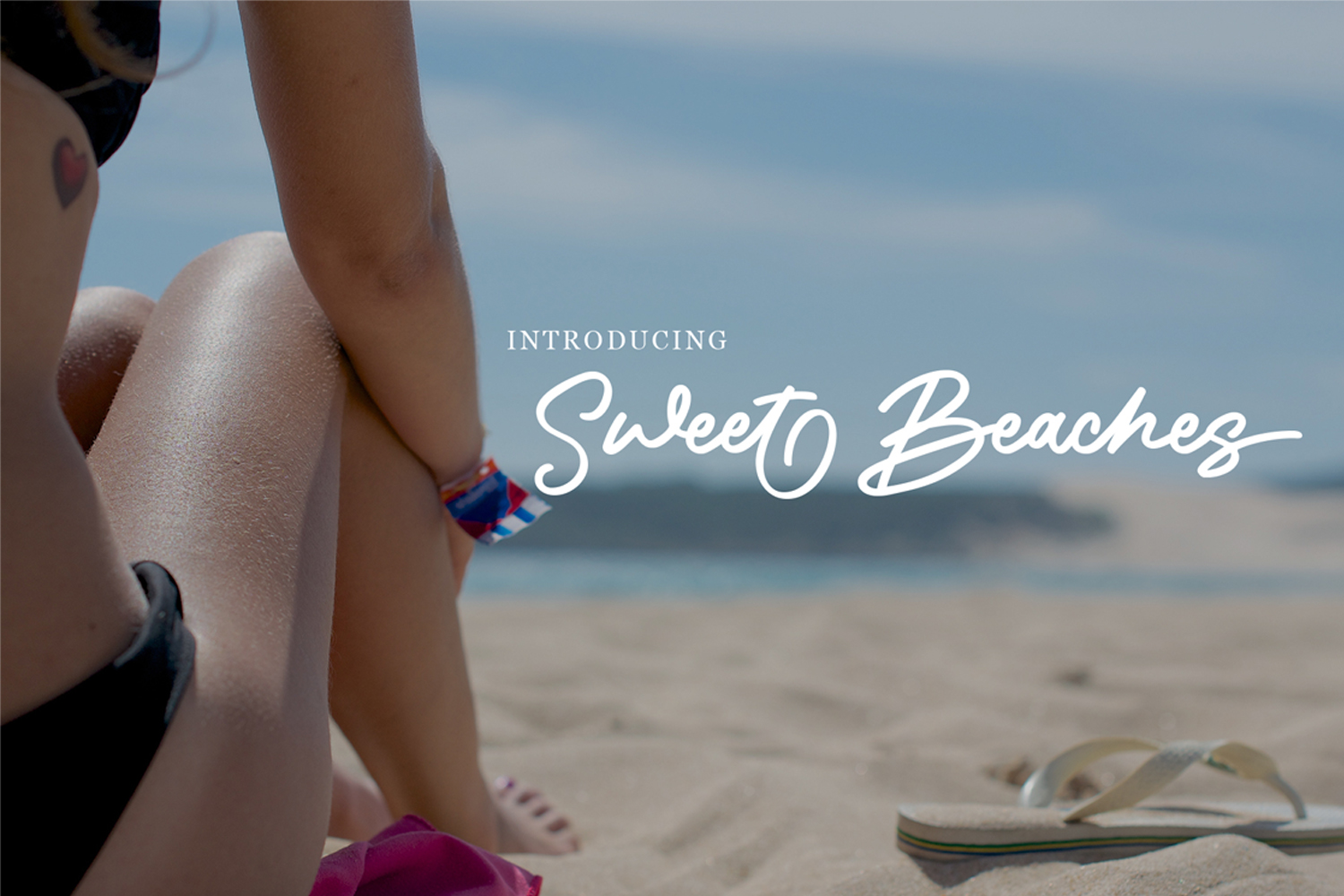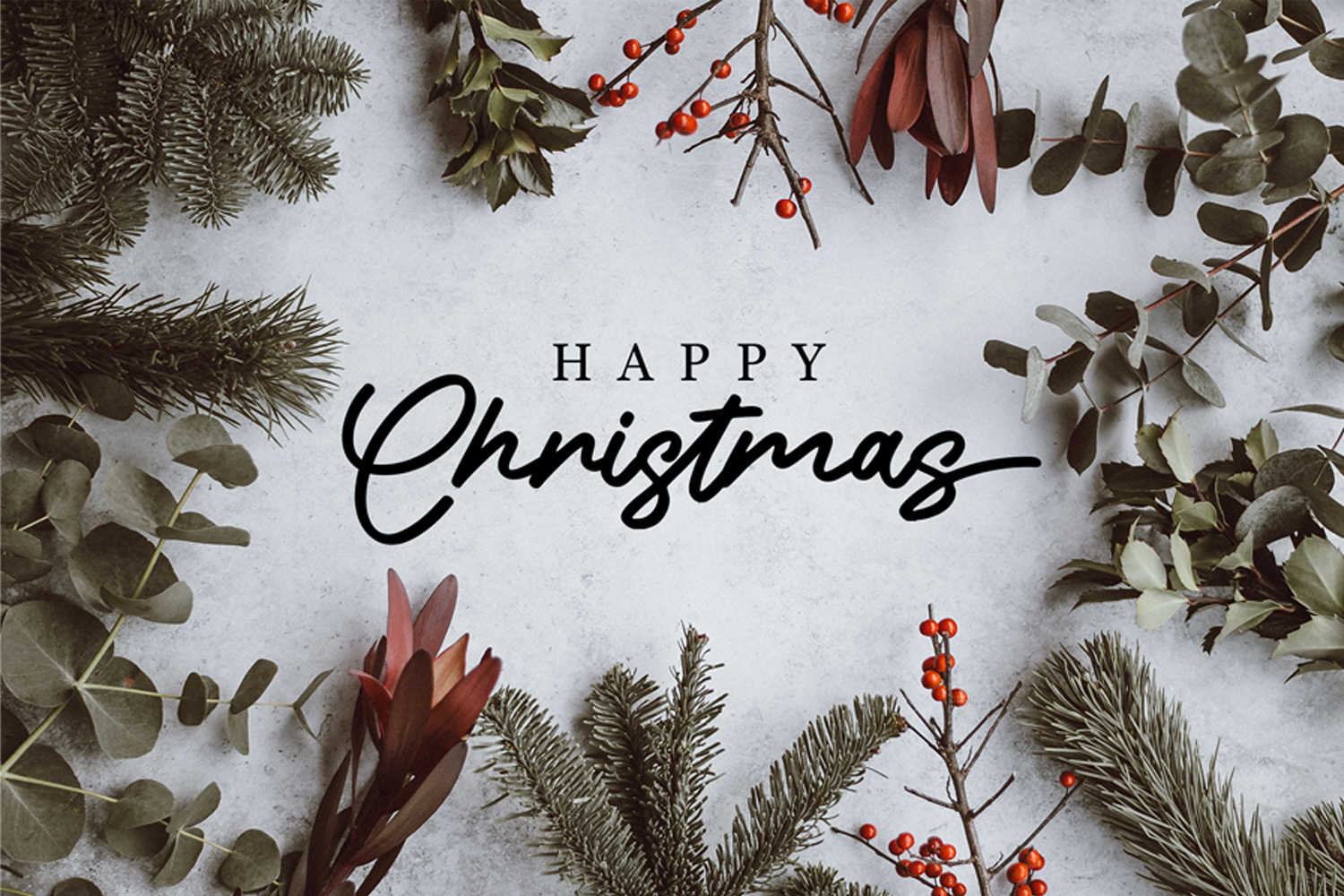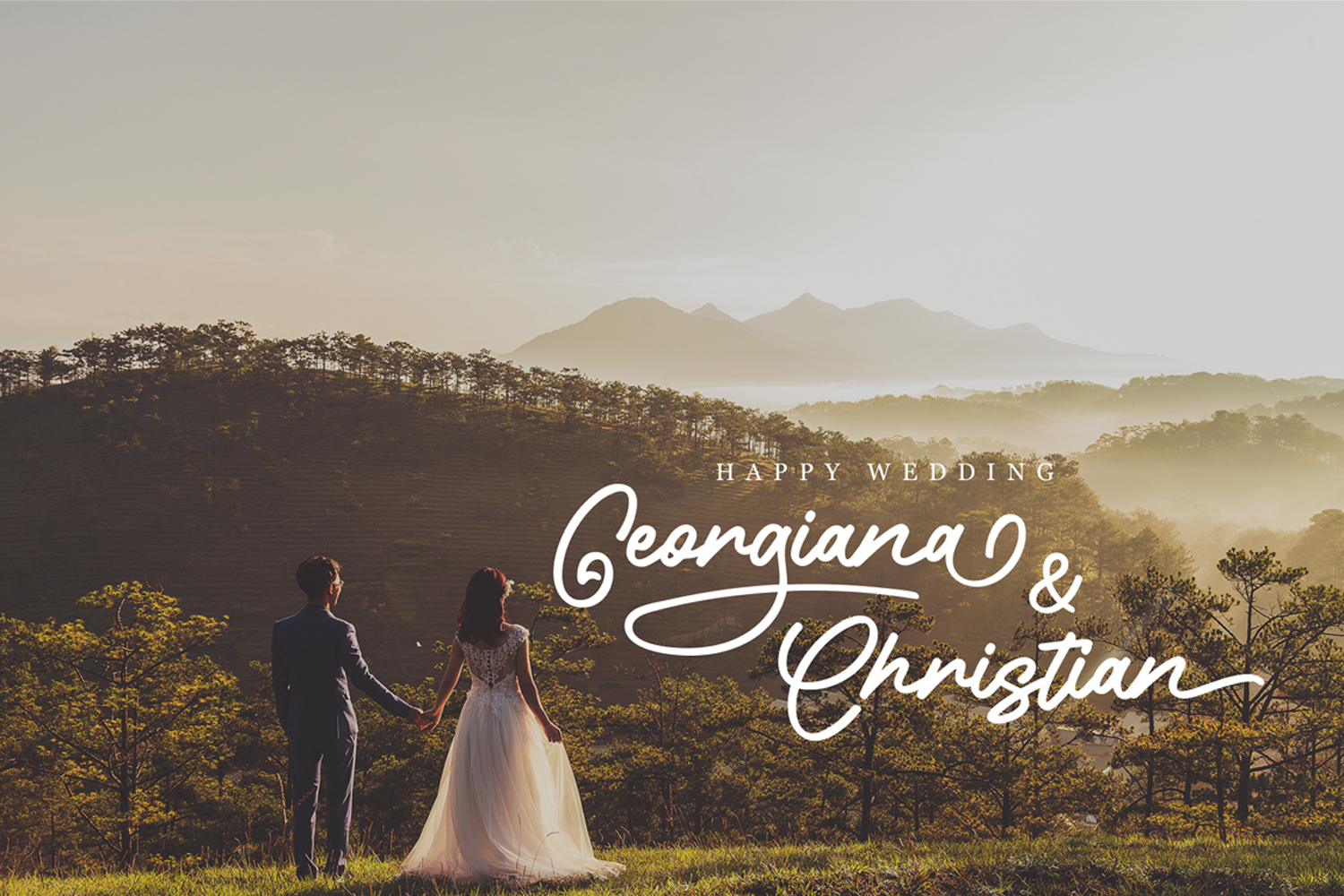
Gilligan Coast Script Font
Gilligan Coast is a unique handwritten font. It features beautiful extras that will brighten up your projects! Its casual charm makes it appear wonderfully down-to-earth, readable, and, ultimately, incredibly versatile. Gilligan Coast will look outstanding in any context, whether it’s being used on busy backgrounds or as a standalone headline!